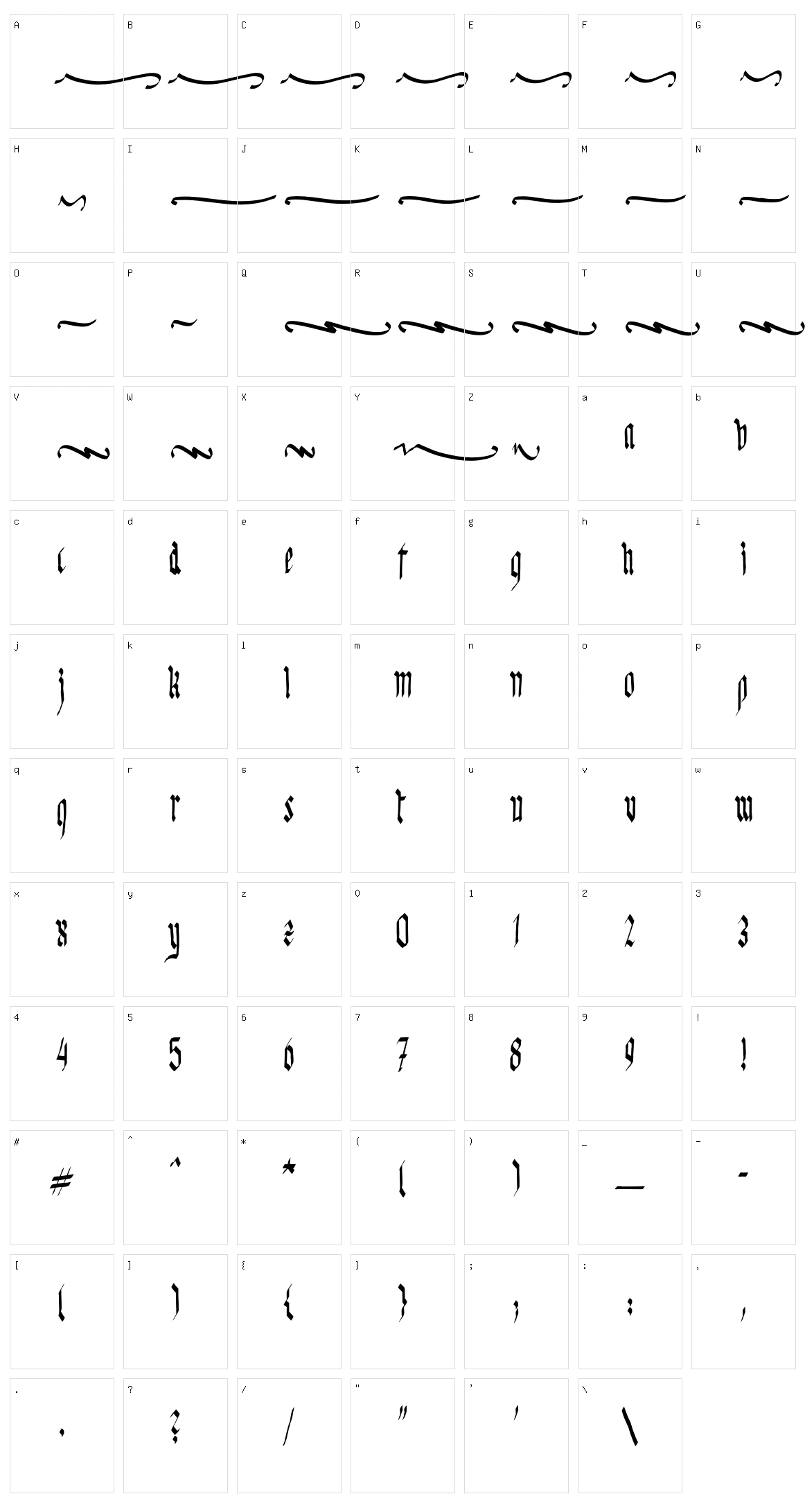
The free font King Georg is carefully designed by Florian Mihr, showcasing a thoughtful balance of creativity and usability and belongs to the Gothic font family. When you download the ZIP file, it contains only 19.76 KB of font files, making it lightweight and quick to download. Please review the license details below to understand permitted usage and distribution rights. If license information is not available, we recommend using this font for personal projects only or contacting the author directly for commercial usage permissions.